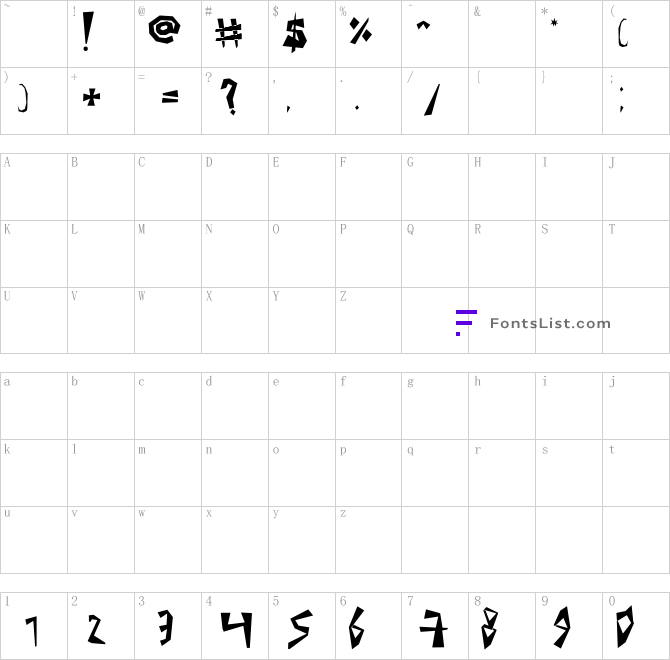
- Font Name:Amnon
Amnon.ttf is a very beautiful artistic font, Amnon.ttf is widely used in the design and printing of various books and pictures,Amnon.ttf has a strong visual impact,Amnon.ttf is a commonly used font in newspapers, magazines and books, and is used in posters, e-commerce Poster design, store design, logo design, font design and other fields.Amnon.